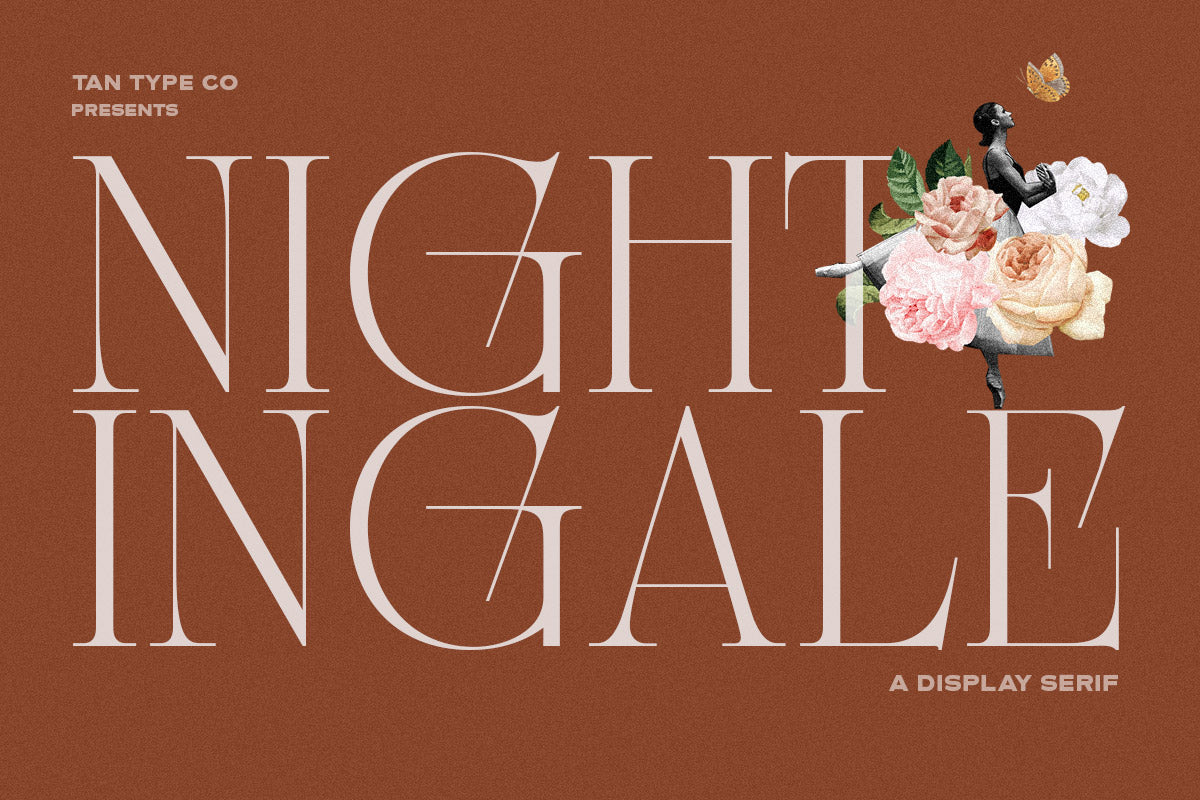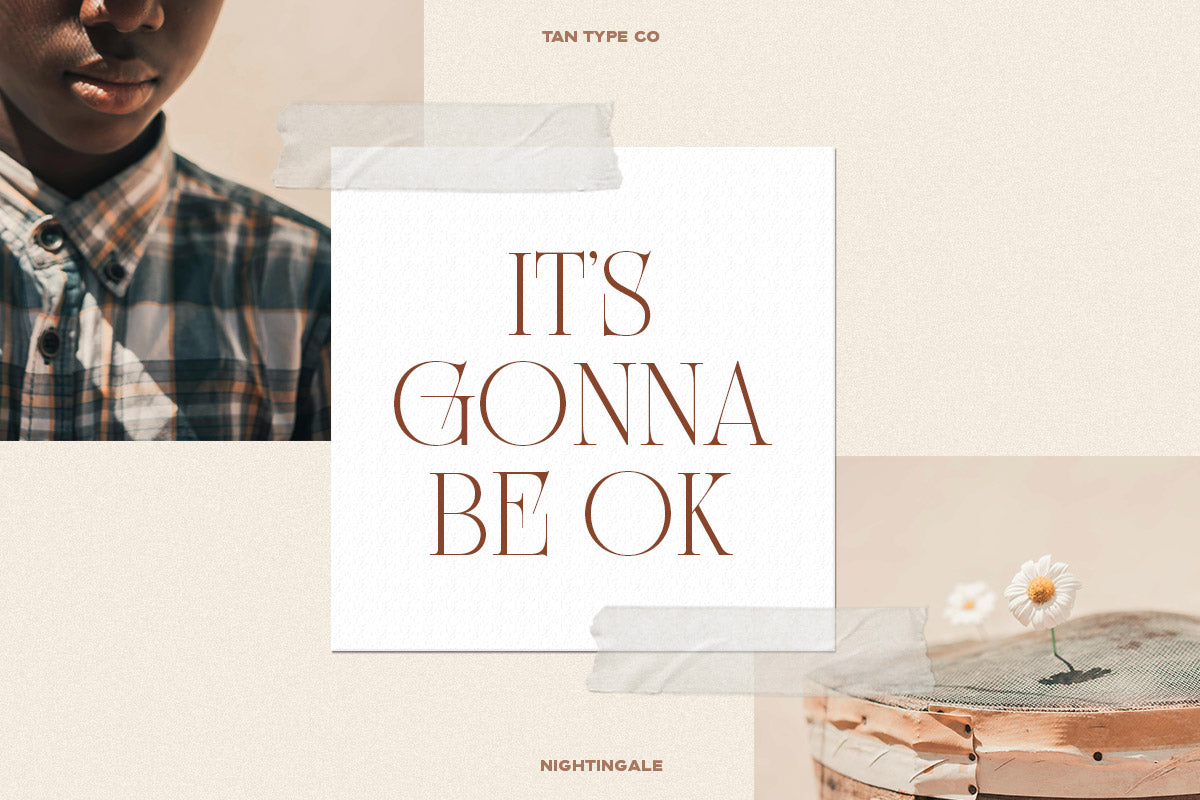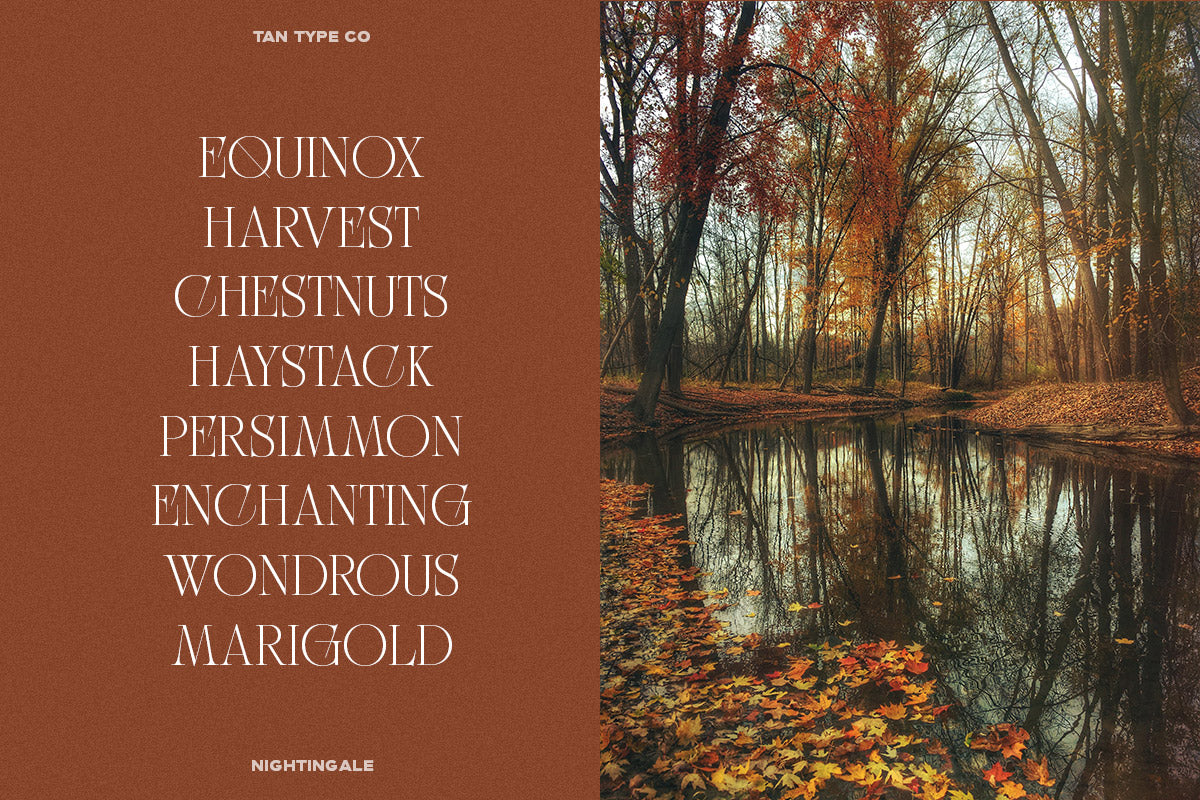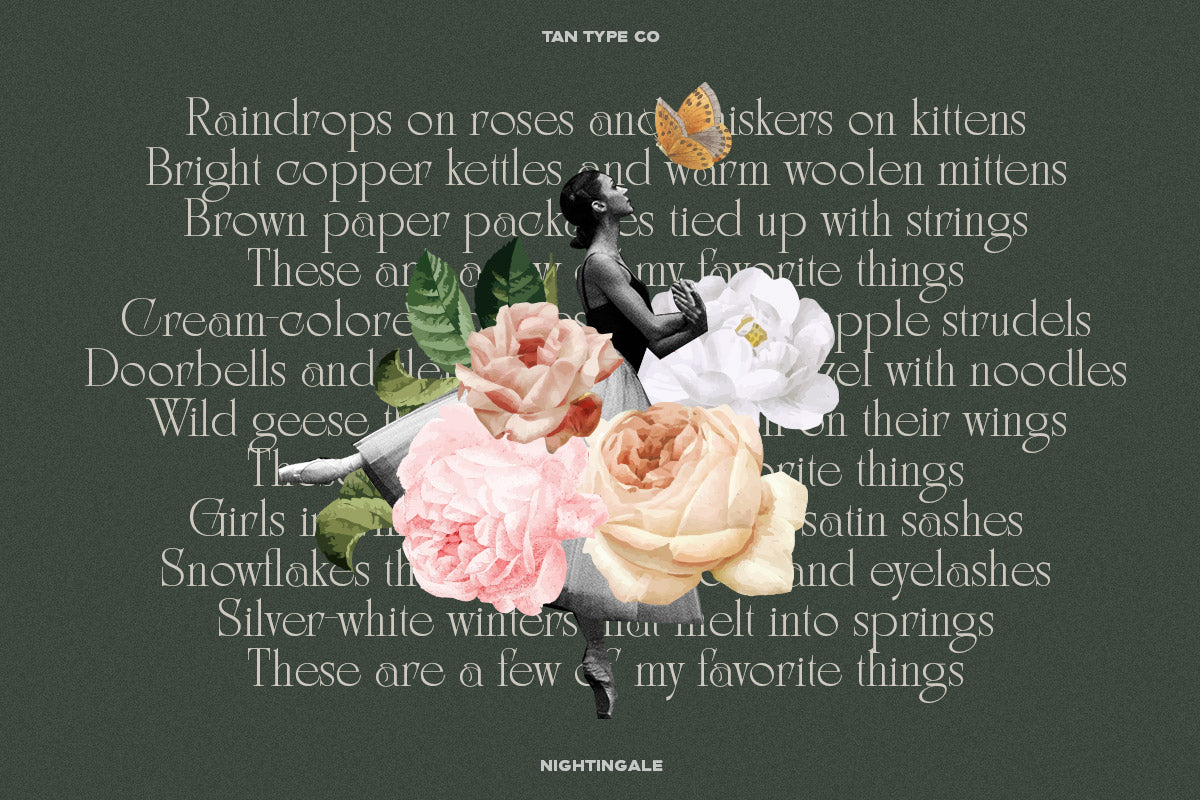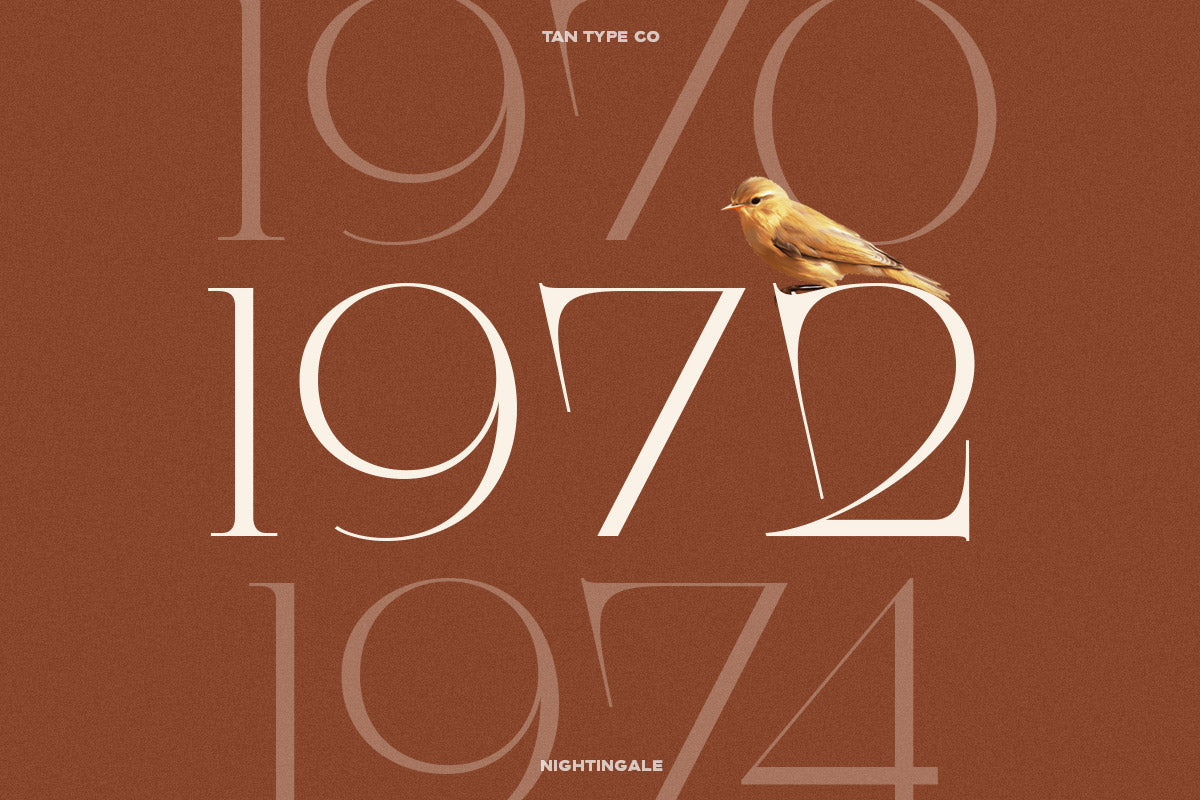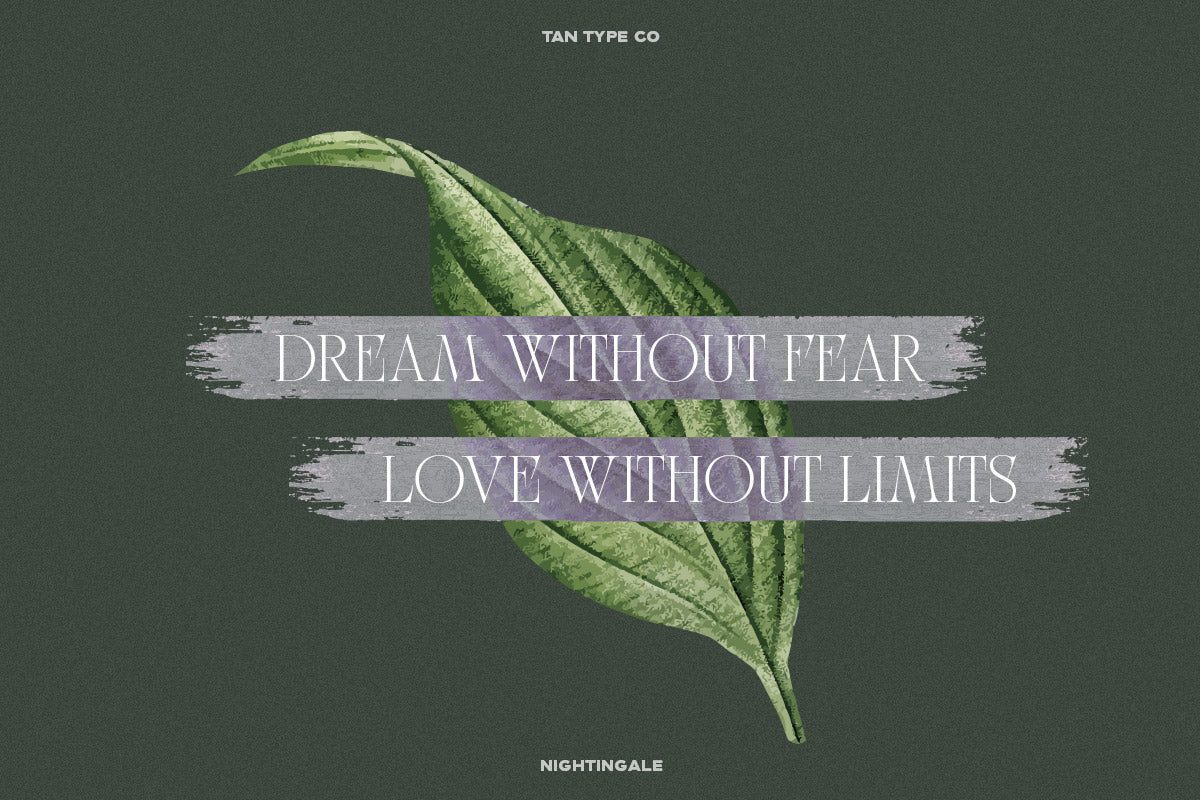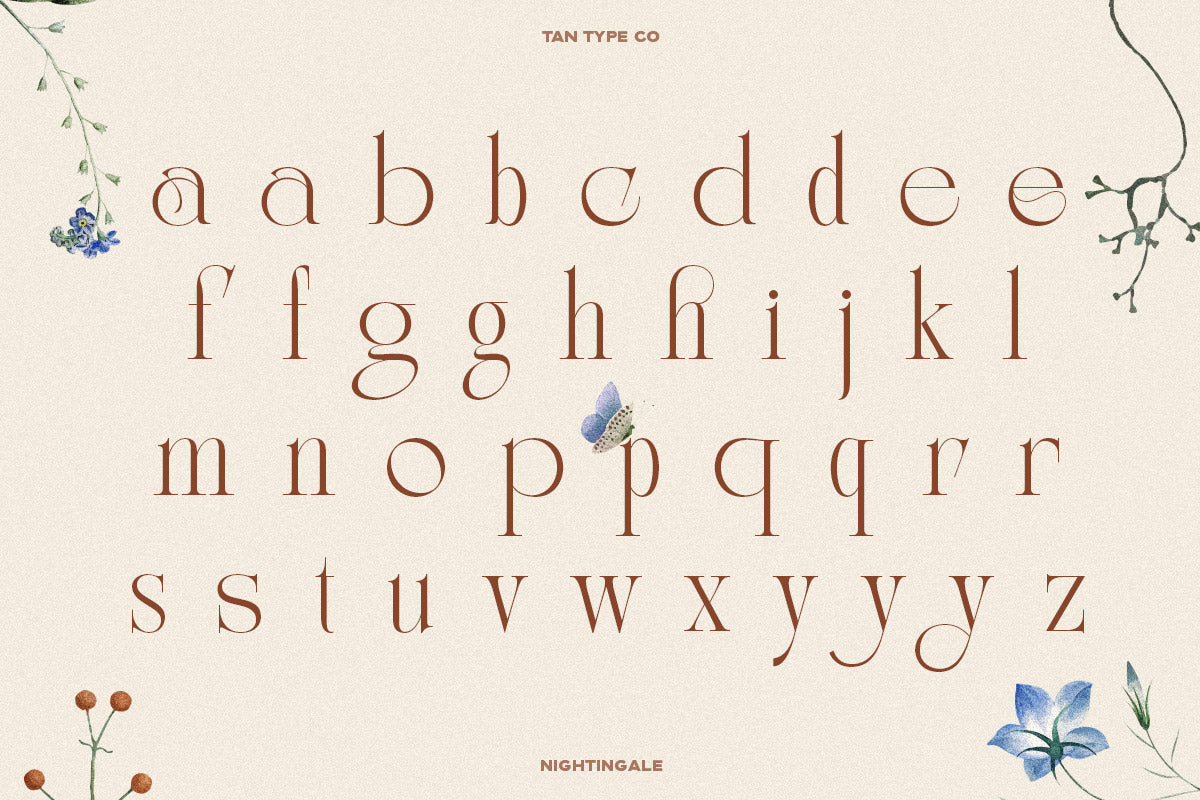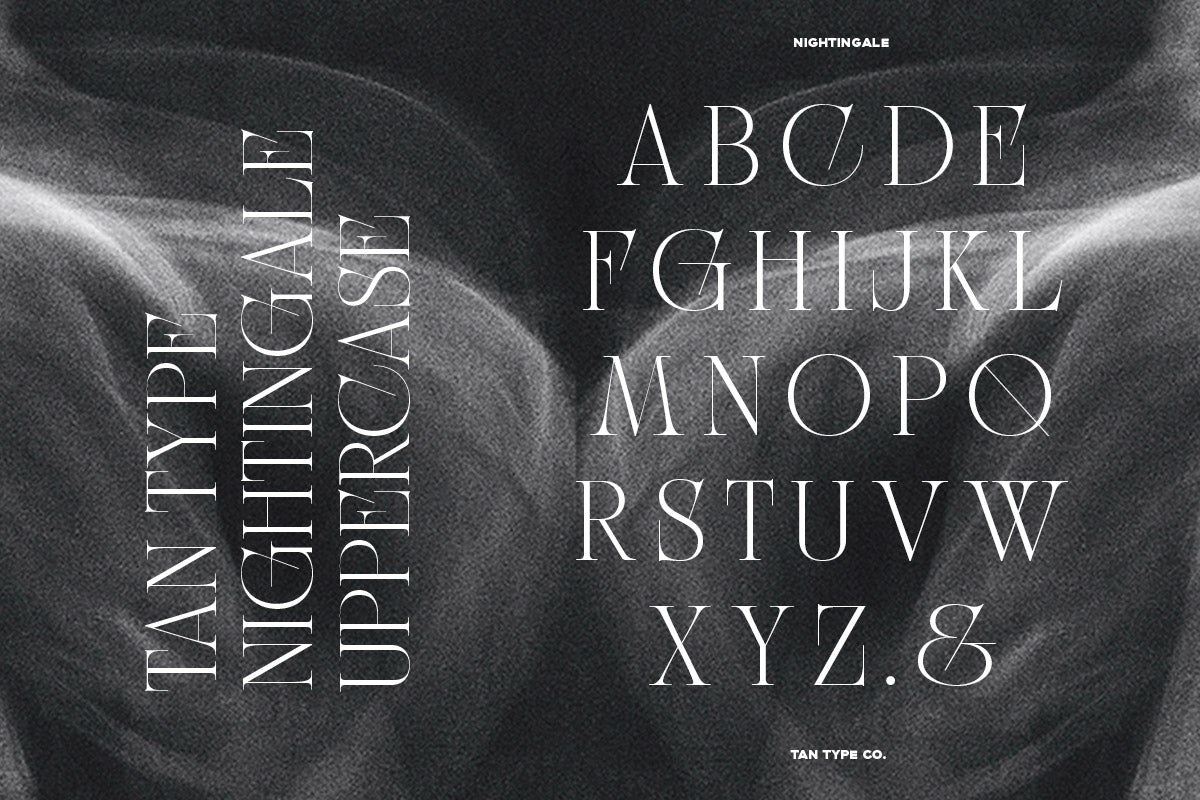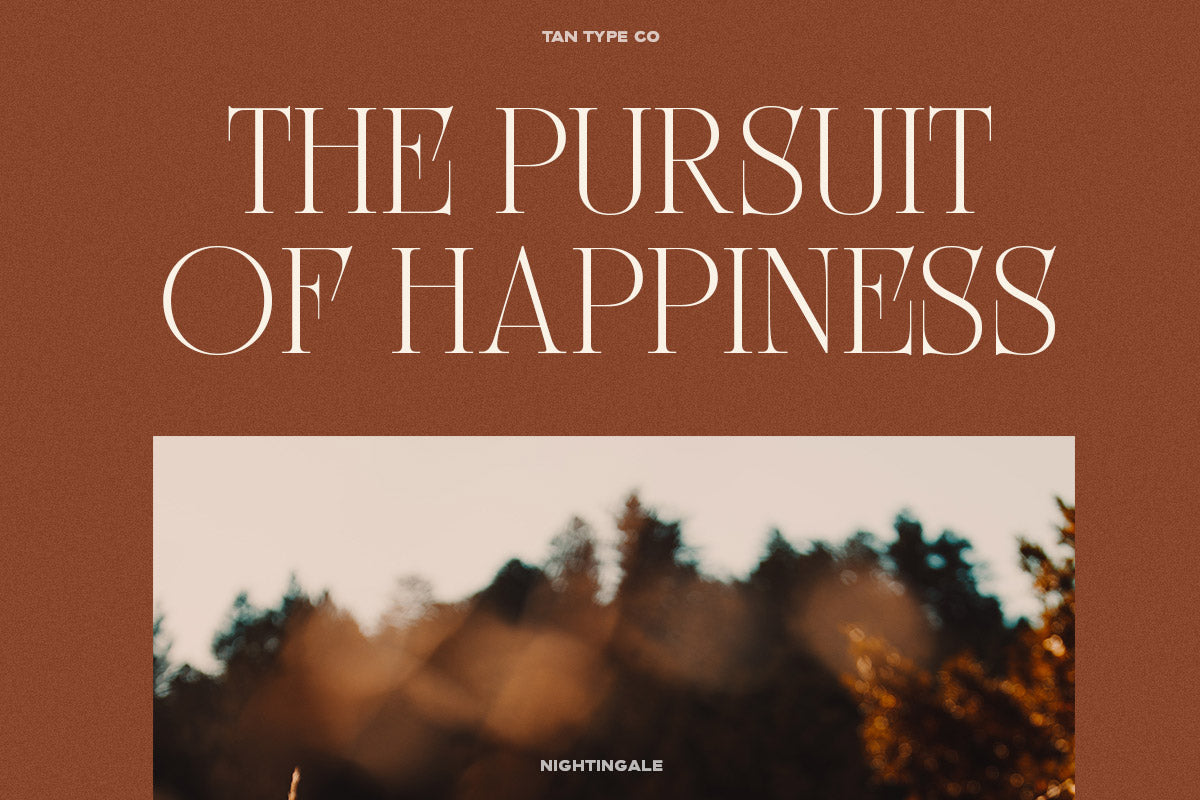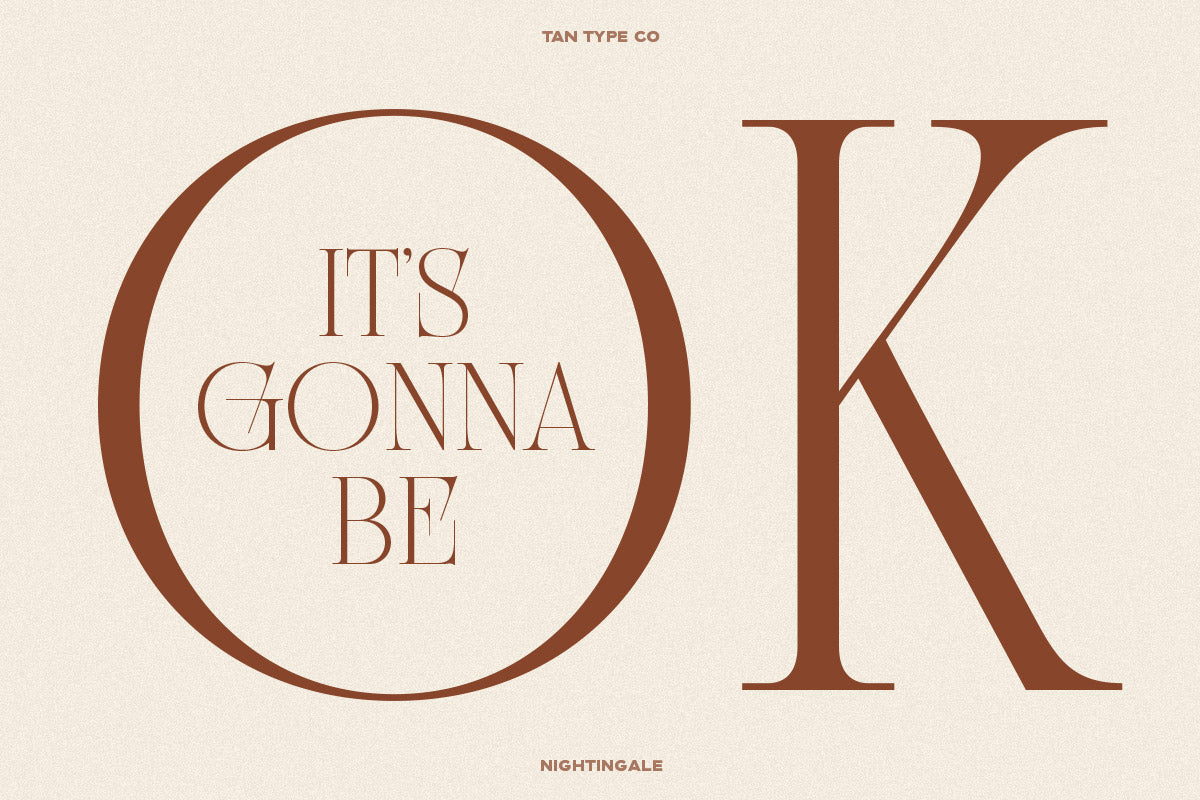
NIGHTINGALE
NIGHTINGALE is an elegant display serif that sings with grace and refinement. Featuring high contrast strokes, elongated letterforms, and distinctive ligatures, it brings a romantic, editorial flair to everything from branding to book covers. This typeface is ideal for designers seeking poise, drama, and timeless sophistication in one graceful package.